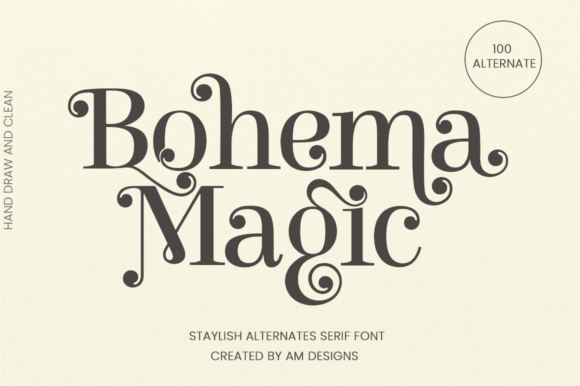
Introducing Bohema Magic Font: The Epitome of Modern Serif Elegance
In the realm of typography, few fonts manage to capture the essence of modernity and elegance as effectively as the Bohema Magic Font. This stunning serif font has been making waves in the design community with its fresh, chic look that exudes an air of sophistication and glamour. Whether you’re a seasoned designer or a creative enthusiast, Bohema Magic is poised to become your go-to choice for crafting spectacular designs that leave a lasting impression.
The Allure of Bohema Magic
Bohema Magic is more than just a font; it’s an experience. Its incredibly stylish and glam vibe is palpable from the first glance, making it an irresistible choice for projects that demand a touch of luxury and refinement. From fashion branding and editorials to advertising and packaging, Bohema Magic’s versatility knows no bounds. This font is designed to elevate your designs, adding a layer of sophistication that sets them apart from the ordinary.
Key Features of Bohema Magic Font
- Modern Serif Design: Bohema Magic boasts a contemporary serif design that is both elegant and highly legible, making it perfect for a wide range of applications.
- PUA Encoding: This font is PUA (Private Use Area) encoded, which means you can easily access all the amazing glyphs and ligatures, allowing for endless creative possibilities.
- Stylish and Glam Vibe: The font’s unique design elements give it a stylish and glamorous feel, ideal for luxury brands, high-end editorials, and sophisticated marketing materials.
- Versatility: Whether you’re working on digital content, print materials, or both, Bohema Magic adapts seamlessly, ensuring your designs always look their best.
Applications of Bohema Magic Font
The applications of Bohema Magic are as diverse as they are exciting. Here are a few areas where this magnificent font truly shines:
1. Fashion and Beauty Branding
Fashion and beauty brands often seek to convey a sense of luxury and exclusivity. Bohema Magic, with its elegant serifs and chic appearance, is perfectly suited for logos, product packaging, and marketing materials in these industries.
2. Editorial Design
For editorial projects such as magazines, newspapers, and online publications, Bohema Magic offers the perfect blend of readability and style. Its modern look can add a fresh touch to any editorial spread, making your content stand out.
3. Advertising and Marketing
In the competitive world of advertising, capturing attention is key. Bohema Magic’s glam vibe and sophisticated feel make it an excellent choice for ad campaigns that aim to convey a sense of high-end quality and luxury.
4. Packaging Design
Product packaging is a critical aspect of brand identity. Bohema Magic can be used to create stunning labels, packaging inserts, and even the product packaging itself, ensuring that your product stands out on store shelves.
Why Choose Bohema Magic?
With so many fonts available, why should Bohema Magic be your top choice? The answer lies in its unique combination of modernity, elegance, and versatility. Here are a few compelling reasons to choose Bohema Magic for your next project:
1. Unparalleled Elegance
Bohema Magic’s design is unparalleled in its elegance and sophistication, making it the perfect choice for projects that demand a high-end look and feel.
2. Ease of Use
Thanks to its PUA encoding, using Bohema Magic is incredibly straightforward. You can easily access a wide range of glyphs and ligatures, allowing you to experiment with different styles and effects without hassle.
3. Cross-Platform Compatibility
Bohema Magic is designed to perform exceptionally well across various platforms and devices, ensuring your designs look great whether they’re viewed on a desktop, tablet, or mobile device.
Bohema Magic Font is a game-changer in the world of typography. Its modern serif design, coupled with a fresh and chic look, makes it an indispensable tool for designers looking to create spectacular designs. With its PUA encoding for easy access to glyphs and ligatures, Bohema Magic offers a world of creative possibilities at your fingertips. Whether you’re aiming to elevate your brand’s luxury appeal, add a touch of elegance to your editorial projects, or simply explore new design horizons, Bohema Magic is your perfect companion.
Embrace the magic of Bohema Magic Font in your designs today and discover a new level of typographic excellence that will leave a lasting impression on your audience.